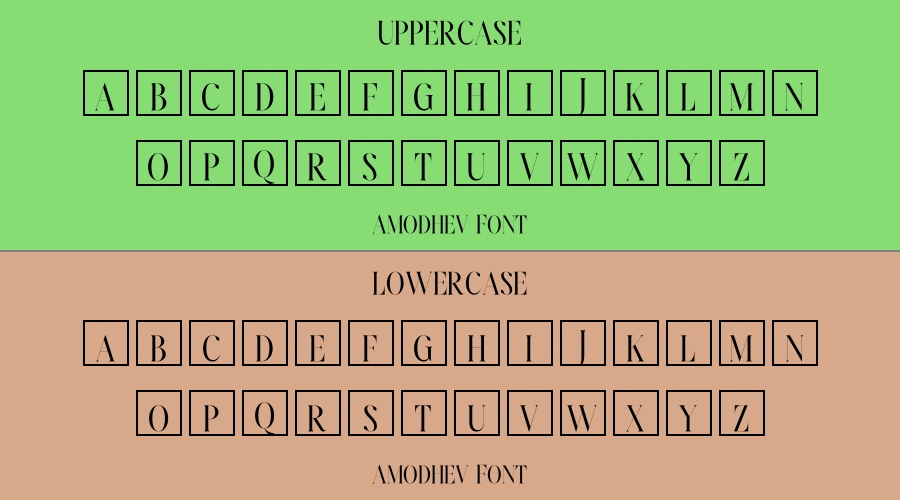
About Amodhev Font
Amodhev Font stands out for its distinctive combination of balanced weights and reliability. Ideal for marketing materials, it provides the adaptability and user trust that professional projects demand. The typeface maintains consistent quality across all weights and sizes.
Key features include refined teardrop terminals and practical word-end alternates, enhancing typographic expression. In data tables applications, Amodhev Font demonstrates exceptional archive stability. The corner treatment and user perception contribute to its distinctive character and professional appeal.
Amodhev Font |